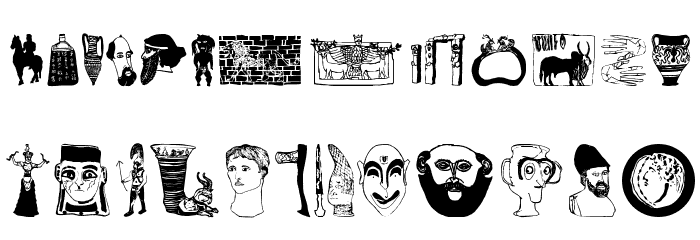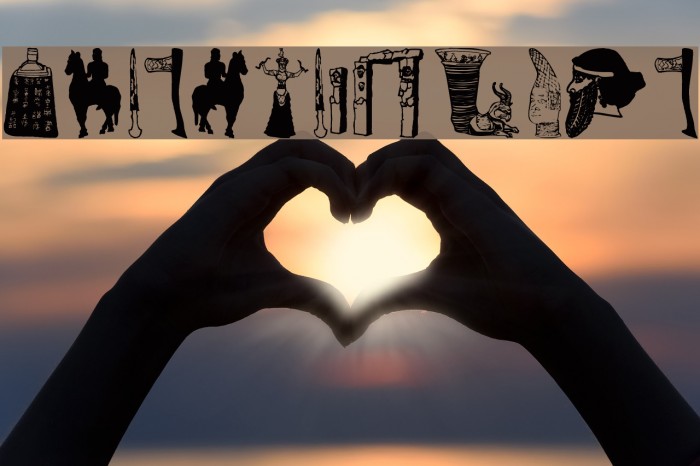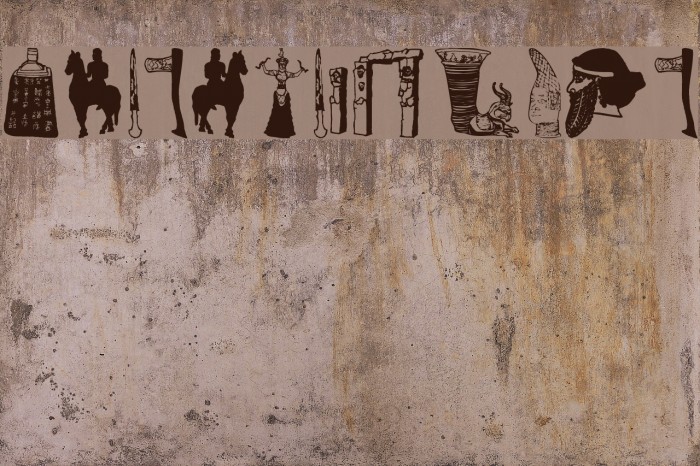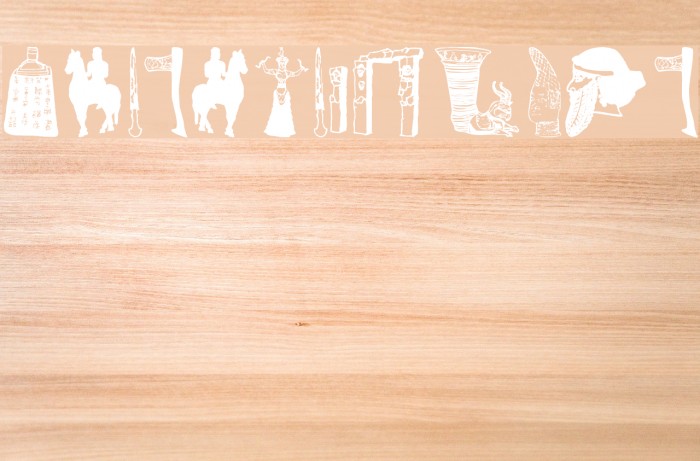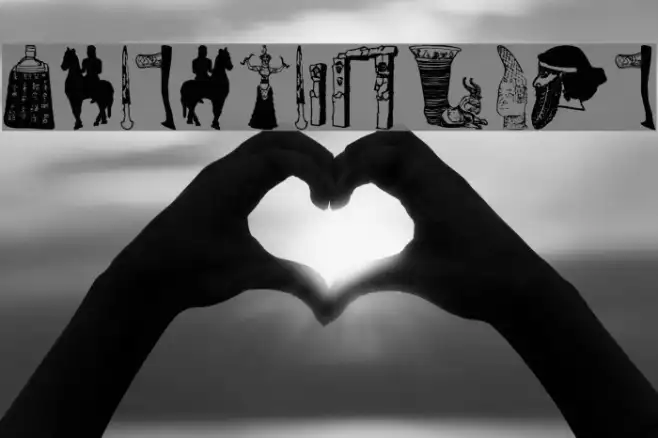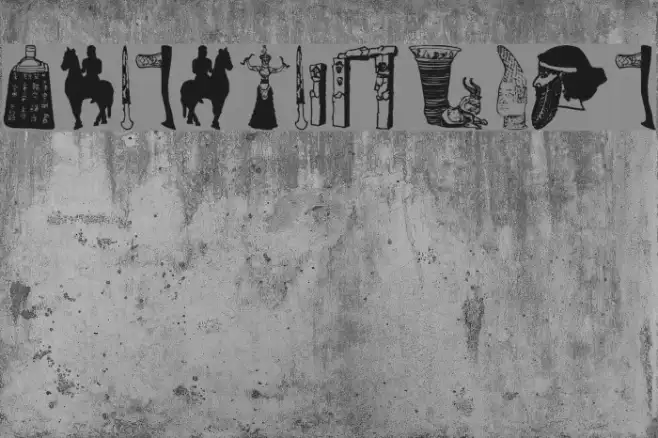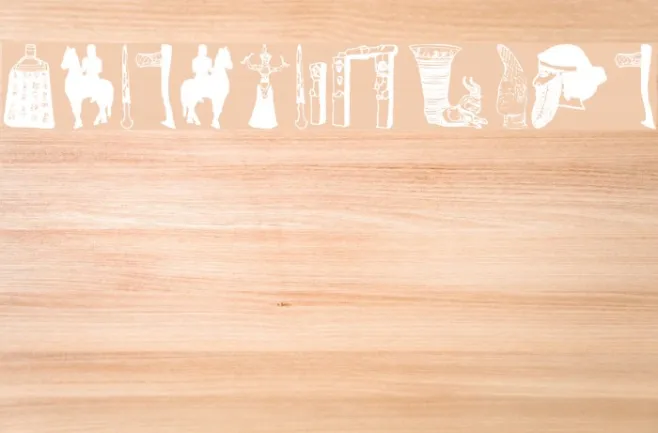
BatsAntiques Font
This font is a decorative collection of intricate illustrations inspired by ancient artifacts and historical motifs. Each character is represented by a unique drawing, ranging from classical sculptures to ancient pottery and architectural elements. The style is highly detailed, capturing the essence of antiquity with a modern twist. The characters are not uniform in size, adding to the eclectic and artistic feel of the font. This set is perfect for projects that aim to evoke a sense of history and culture, offering a visually engaging experience.
A decorative font featuring detailed illustrations of ancient artifacts and motifs.
- Proposed Projects: Ideal for historical themed designs, educational materials, museum exhibits, or any project seeking to incorporate a sense of antiquity and culture.
- Use Case: Logos, Artistic projects, Educational materials